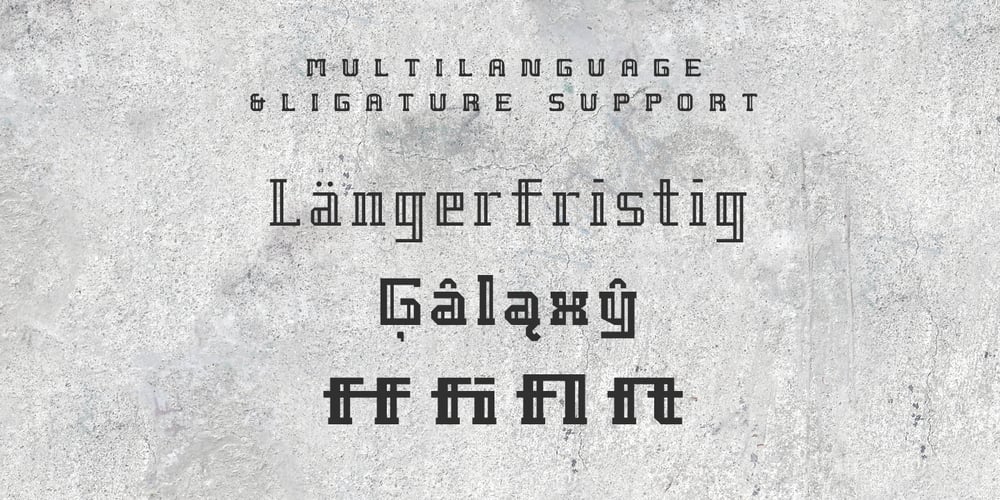
Pontem
Pontem font
Pontem Font Family was designed by Ethan Park and published by Ethan is Sweet. Pontem contains 30 styles and family package options. Pontem family – Engineered typeface Fascination with the complex engineering that goes into the structure of bridges.